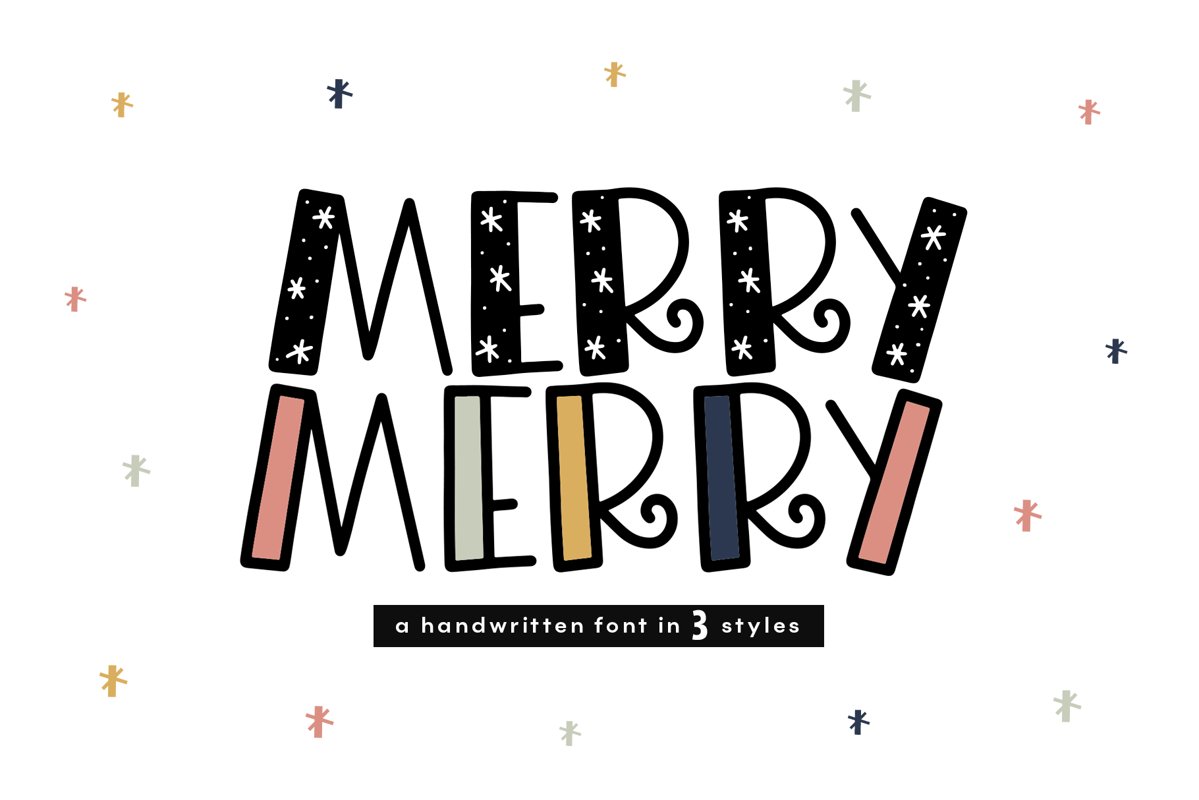
Merry Merry - A Fun Handwritten Font in Three Styles!
Merry Merry is a handwritten font with bold, fun letters.
This font is perfect for quotes, shirts, svgs, mugs, branding, children's designs, logos, invitations and more!  It is especially perfect for all of your Christmas and Holiday designs!
There are 3 styles included:
•  Merry Merry Solid
• Merry Merry Open
• Merry Merry Fun